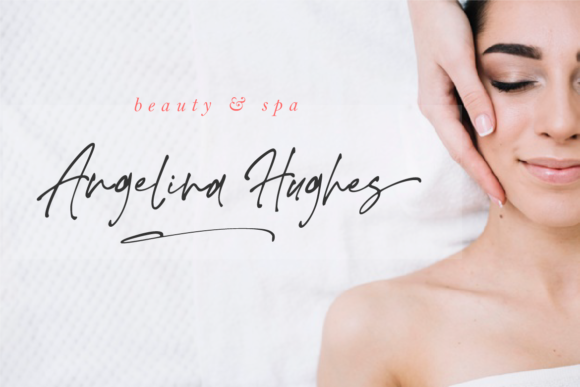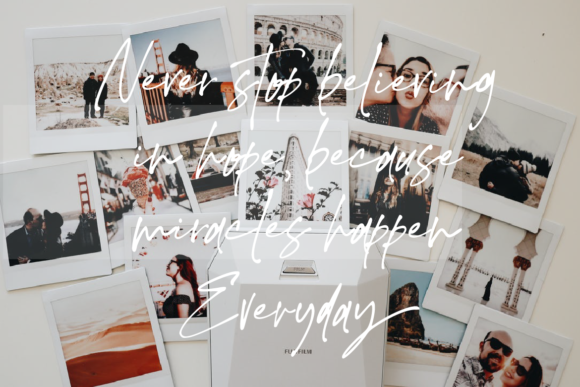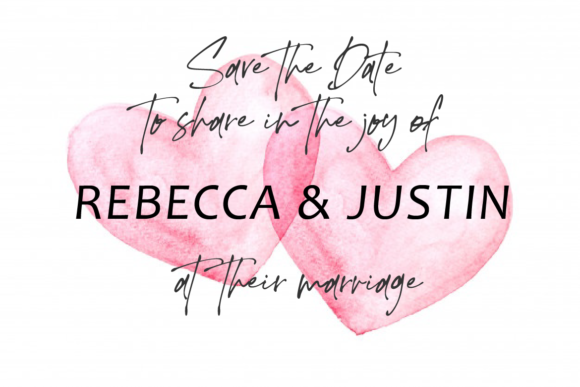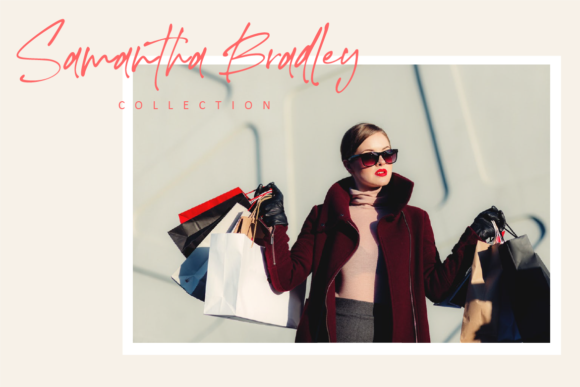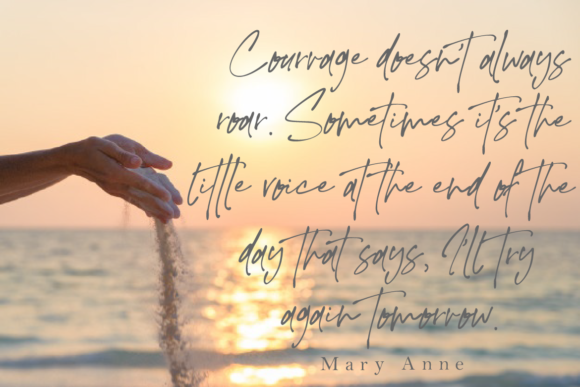
About The Ballpoint Font
The Ballpoint is a handwritten font with a natural look. It has cute alternates, ligatures and swashes. The Ballpoint is the perfect font for making original and outstanding designs.